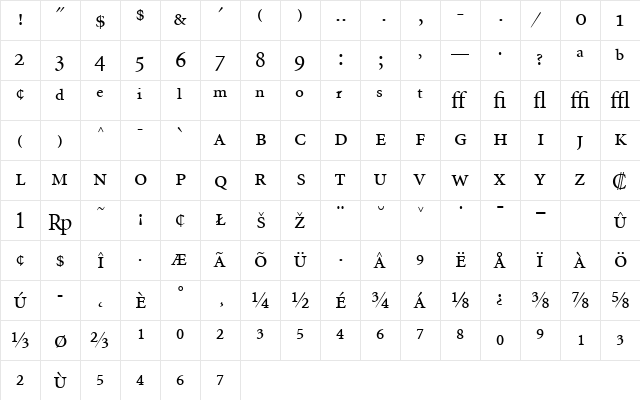
MinionExp-Regular Regular
Design Context for MinionExp-Regular Typeface
MinionExp-Regular is a composed and adaptable typeface that performs quietly and consistently across a wide range of design contexts.